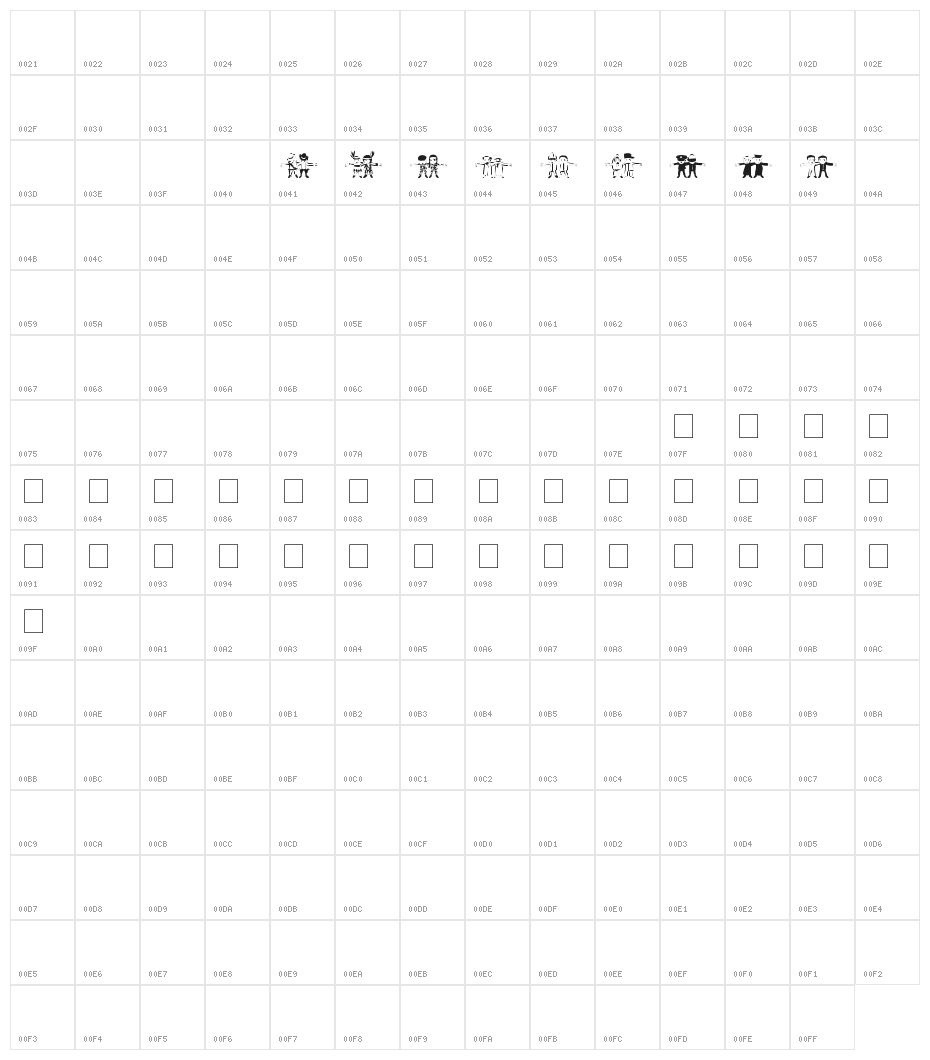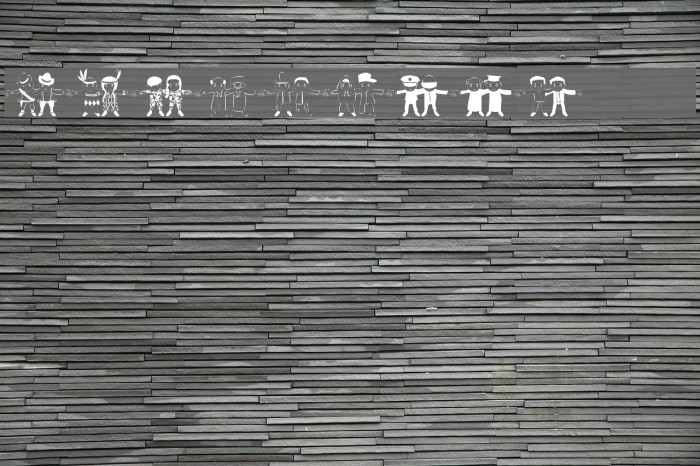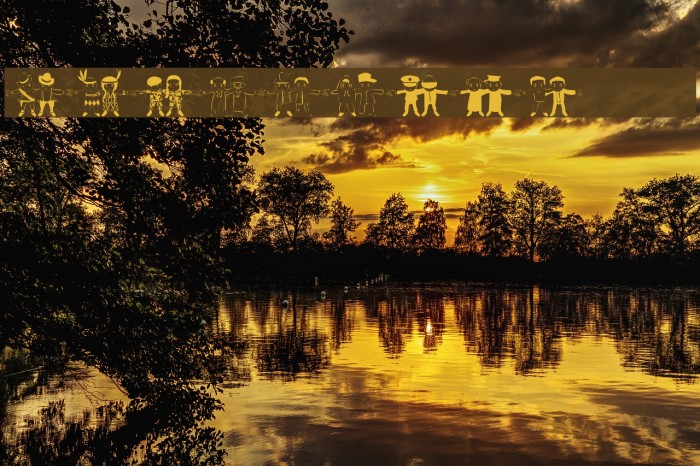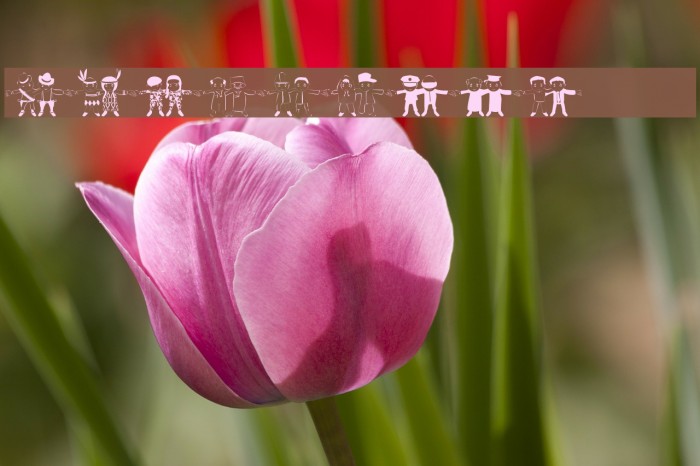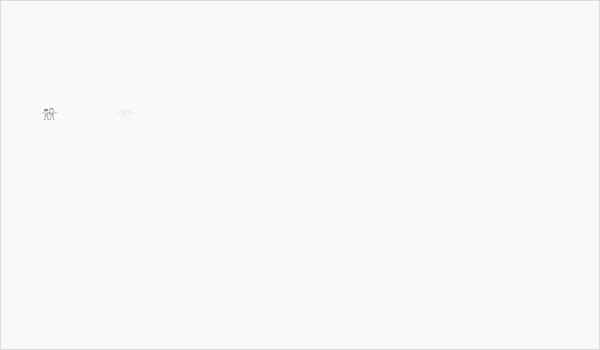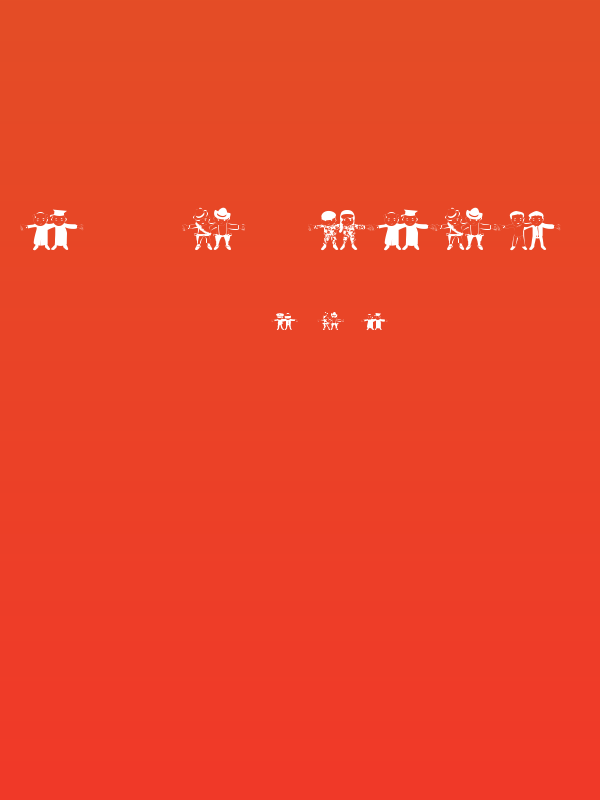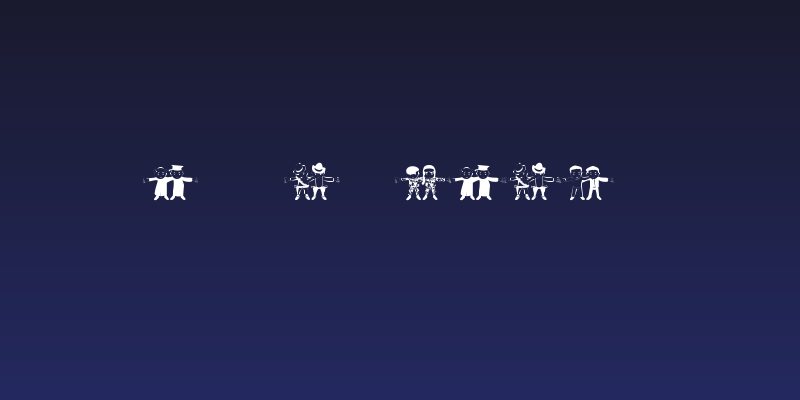
human chain Font
human chain Description
This is a decorative display typeface featuring playful, hand-drawn human figures holding hands to form each character. The style is whimsical and cartoon-like, with each letter represented by a unique character illustration, emphasizing diversity and unity.
| Overall Style | Decorative, Whimsical, Playful |
| Use Case | Headlines, Posters, Logos, Themed event materials |
| Proposed Projects | ChildrenΓ’β¬β’s books, educational materials, event posters, community or diversity campaigns, playful branding. |